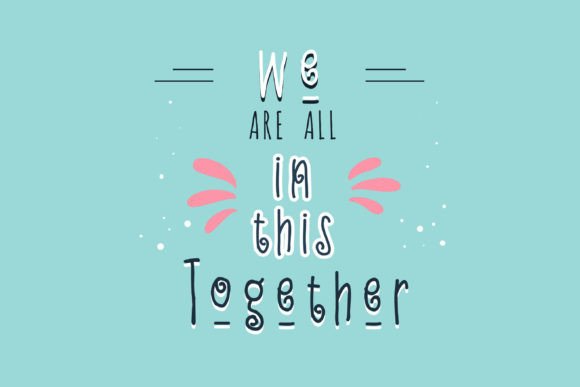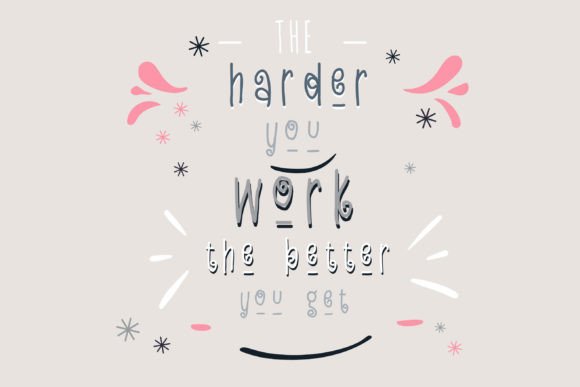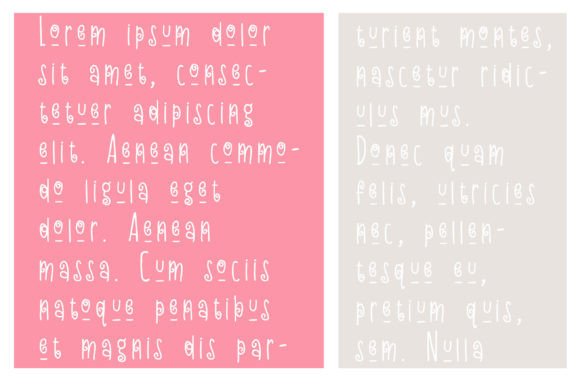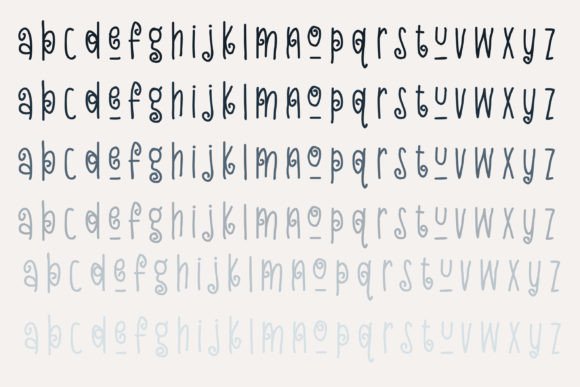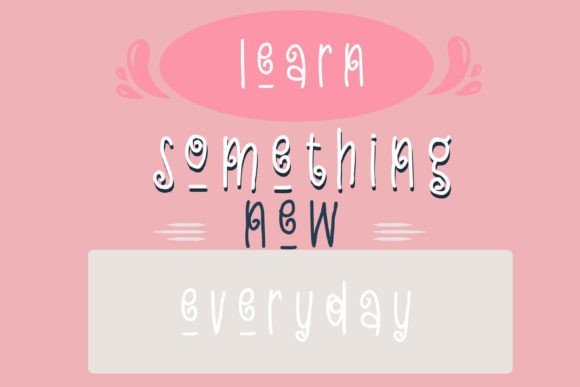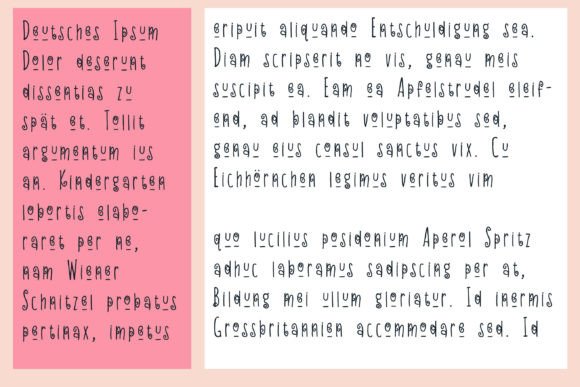
Introducing Altruistic Font: Adding a Whimsical Touch to Your Designs
Are you tired of using the same old fonts in your designs? Do you want to add a playful and eye-catching touch to your projects? Look no further than Altruistic Font, a quirky and whimsical handwritten font that’s perfect for designers and crafters looking to make a statement.
What is Altruistic Font?
Altruistic Font is a unique and playful handwritten font that’s designed to add a lighthearted and fun vibe to your designs. With its bold and full-of-personality letters, this font is sure to draw attention and make your projects stand out. Whether you’re working on a branding project, a craft project, or just want to add some personality to your digital designs, Altruistic Font is the perfect choice.
Key Features of Altruistic Font
- Quirky and eye-catching: Altruistic Font has a unique and playful look that’s sure to grab attention.
- Whimsical and handwritten: With its handwritten feel, this font adds a personal and human touch to your designs.
- Bold and full of personality: The letters in Altruistic Font are bold and confident, making it perfect for designs that need a statement piece.
- Lighthearted and fun: This font has a playful and carefree vibe that’s sure to bring a smile to people’s faces.
Altruistic Font is a versatile font that’s perfect for a wide range of design projects, including:
- Branding and logos: Add a playful touch to your brand identity with Altruistic Font.
- Digital designs: Use this font to add personality to your social media graphics, blog posts, and website designs.
- Craft projects: Altruistic Font is perfect for crafters who want to add a personal touch to their projects, such as handmade cards, scrapbooking, and DIY signs.
- Signage and displays: Use this font to create eye-catching signs and displays that are sure to grab attention.
- Experiment with different colors: Altruistic Font looks great in bold and bright colors, so don’t be afraid to get creative!
- Mix and match: Combine Altruistic Font with other fonts to create a unique and interesting look.
- Play with texture: Add texture to your designs by using Altruistic Font with different textures and patterns.
Altruistic Font is a unique and playful handwritten font that’s perfect for designers and crafters looking to add a whimsical touch to their designs. With its bold and full-of-personality letters, this font is sure to draw attention and make your projects stand out. Whether you’re working on a branding project, a craft project, or just want to add some personality to your digital designs, Altruistic Font is the perfect choice. So why not give it a try and see how it can add a lighthearted and fun vibe to your designs?